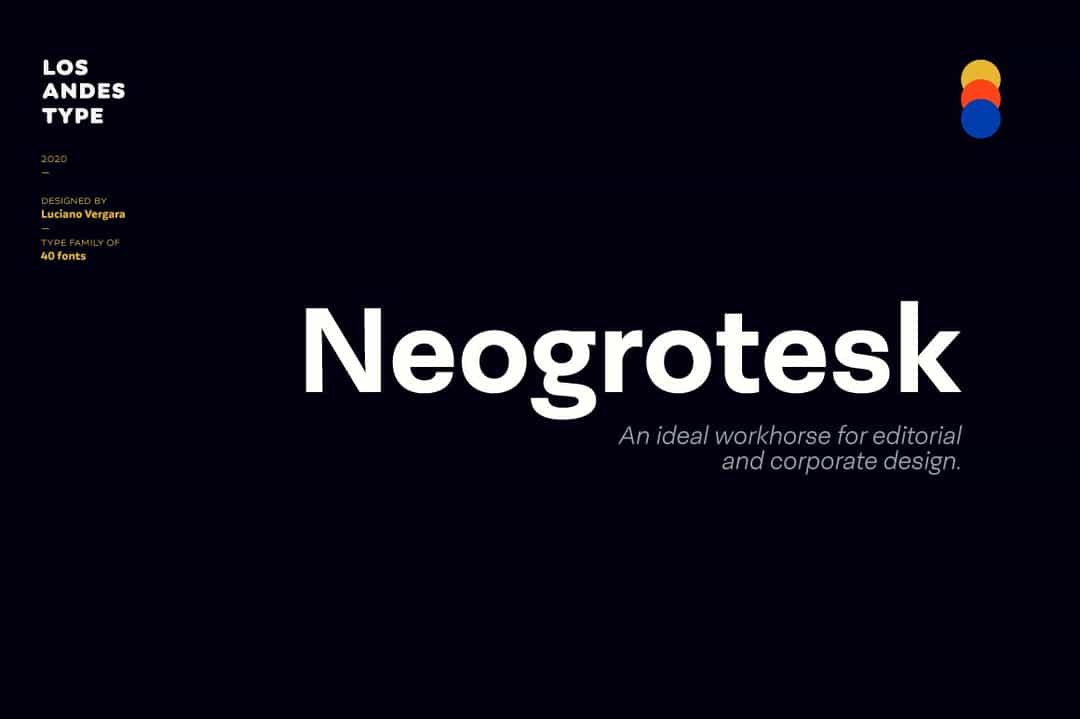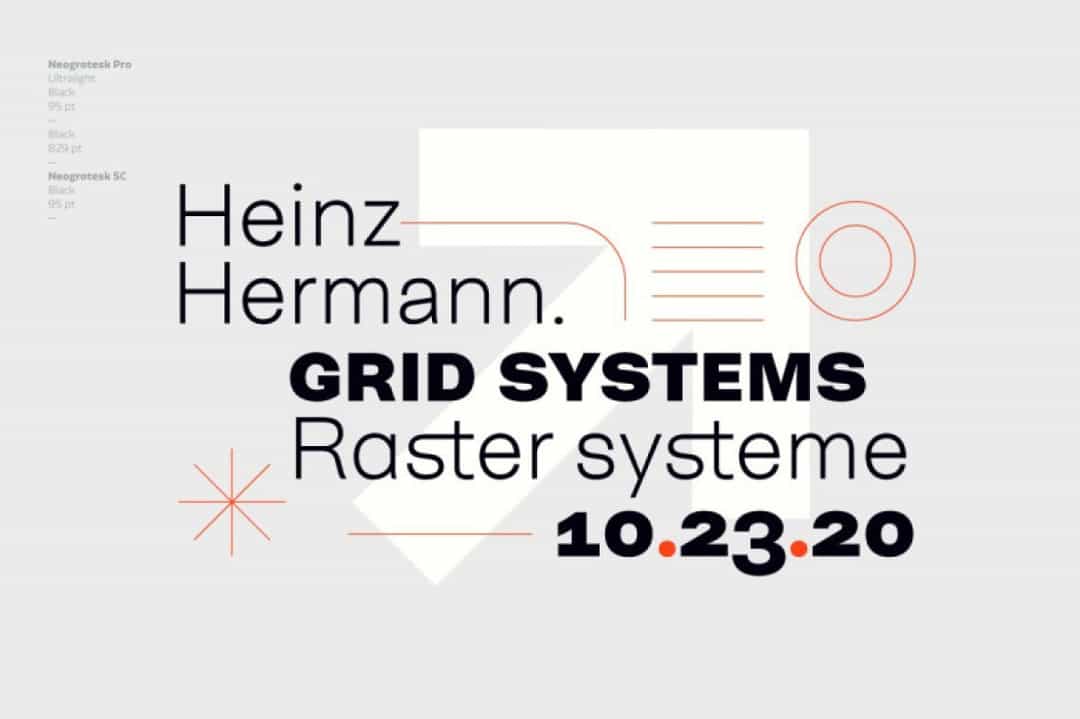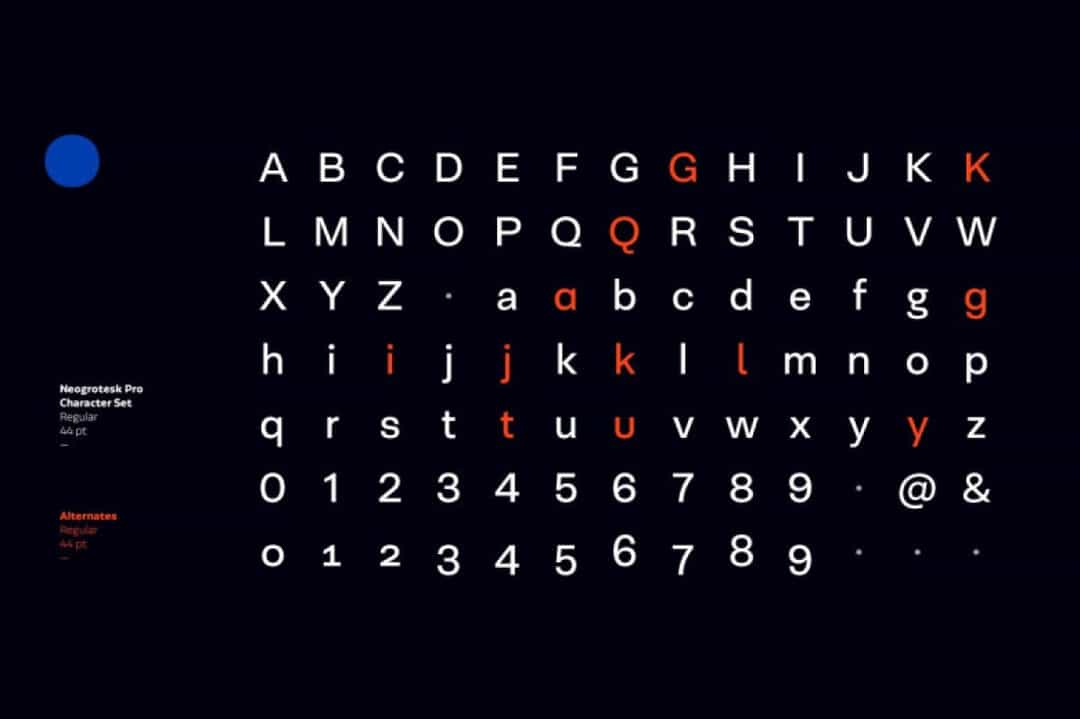
Neogrotesk Sans Serif Font is a versatile and reliable workhorse typeface, featuring an unassuming appearance and Latin flavor. It offers various typographic options including alternate small caps, ligatures and case sensitive punctuation alongside arrows, old style punctuation marks as well as tabular characters for versatility and easy readability.